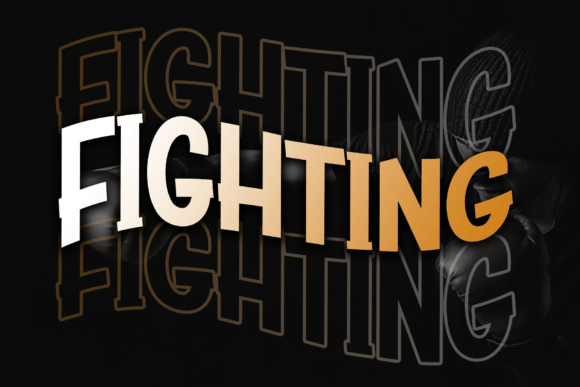
Fighting: A Neat and Beautiful Display Font
In the crowded landscape of digital typography, finding a typeface that balances distinct character with timeless elegance is a rare achievement. Fighting emerges as a standout solution for designers seeking a display font that commands attention without sacrificing readability. Described by many as a neat and beautiful display font described by an elegant touch, it offers a unique aesthetic that bridges the gap between modern minimalism and classic sophistication. Whether you are crafting a high-end brand identity or designing a personal blog header, this font provides a visual language that speaks volumes before a single word is read.
The allure of Fighting lies in its incredibly distinct and timeless style. Unlike trendy fonts that fade as quickly as they appear, this typeface possesses structural integrity and artistic flair that ensures longevity in your designs. It is not merely a collection of letters; it is a tool for storytelling, capable of elevating plain text into spectacular designs that resonate with audiences on an emotional level.
Understanding the Essence of Fighting
At its core, Fighting is designed to be a statement piece. As a display font, it is intended for headlines, logos, posters, and short bursts of text where impact is paramount. The "neat" aspect refers to its clean lines and balanced spacing, ensuring that even at larger sizes, the characters remain crisp and legible. The "beautiful" element comes from its subtle curves and the elegant touch applied to its serifs and terminals, giving it a refined appearance that feels both approachable and authoritative.
This font avoids the clutter often found in decorative typefaces. Instead, it relies on strong geometry and fluid motion to create a sense of harmony. For anyone looking to add a layer of polish to their work, Fighting offers a versatile foundation that can adapt to various design contexts while maintaining its unique identity.
Why Different Audiences Value This Typeface
The value of a font like Fighting shifts depending on who is using it and what they aim to achieve. While the visual appeal is universal, the practical application varies significantly across different professional and personal spheres.
For Beginners and Hobbyists
For those just starting their journey in graphic design, Fighting serves as an excellent learning tool. Its clear structure helps beginners understand how letterforms interact within a layout. Because the font is so distinct, it allows new creators to see immediate results when experimenting with kerning, leading, and hierarchy. A hobbyist creating invitations for a wedding or a birthday party can instantly elevate their project from a simple document to a professional-looking invitation suite simply by swapping a standard system font for Fighting. The ease of use means there is no steep learning curve required to achieve a high-quality look.
For Professionals and Creators
Professional designers and creative directors often prioritize flexibility and reliability. Fighting meets these needs by offering a robust set of glyphs that hold up well across different media, from print brochures to digital banners. For a branding agency, the font's timeless style ensures that a logo created today will still feel relevant five years from now. The ability to create spectacular designs quickly is crucial for freelancers working under tight deadlines, and this font reduces the time spent on tweaking typography because the inherent balance of the characters does much of the heavy lifting.
For Entrepreneurs and Small Business Owners
Business owners need tools that convey trust and quality without requiring a massive budget for custom illustration. Using Fighting in marketing materials, such as business cards, website headers, or social media graphics, signals professionalism. It helps small businesses compete visually with larger corporations by providing a polished, cohesive look. The font's elegant touch aligns well with industries like fashion, hospitality, consulting, and artisanal goods, where presentation is directly tied to perceived value.
For Educators and Marketers
Educators creating course materials or presentations can use Fighting to highlight key concepts and break up dense text, making learning materials more engaging. Similarly, marketers rely on fonts to drive engagement. A headline written in Fighting stops the scroll. Its distinct style grabs attention in a feed filled with generic sans-serifs, increasing the likelihood that a consumer will pause to read the message. The commercial value here is clear: better typography leads to higher engagement rates and stronger brand recall.
Evaluating Priorities: Cost, Quality, and Flexibility
When deciding if Fighting is the right choice for your next project, several priorities come into play. These factors help determine whether the font matches your specific goals and skill level.
- Quality and Legibility: The primary strength of this font is its high-quality rendering. It remains sharp at various sizes, which is essential for both print and screen applications. If your priority is clarity combined with style, this font excels.
- Cost vs. Value: While licensing costs vary, the long-term usefulness of a timeless font often outweighs the initial investment. Unlike free fonts that may lack character sets or have inconsistent weights, a premium display font like Fighting offers consistency and reliability.
Ultimately, typography is about communication. Fighting communicates elegance, confidence, and attention to detail. Whether you are a seasoned designer or someone just exploring the world of creative expression, this font provides a reliable and stunning vehicle for your ideas. Fall in love with its style, experiment with its possibilities, and let it transform your favorite projects into spectacular designs that stand the test of time.